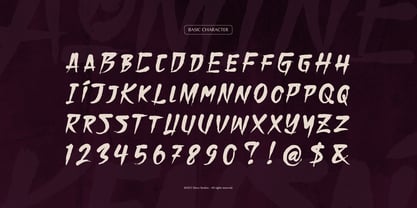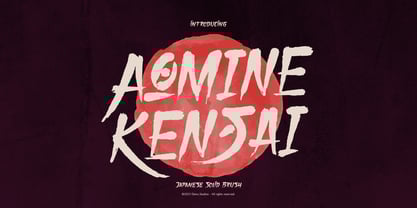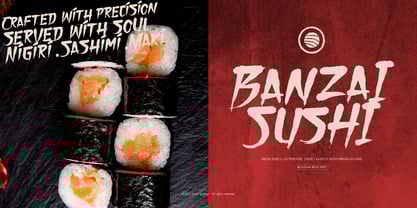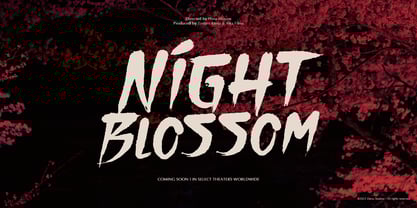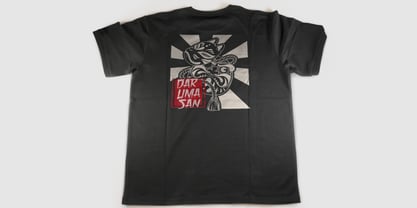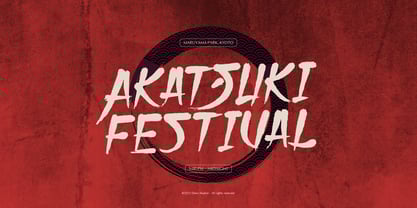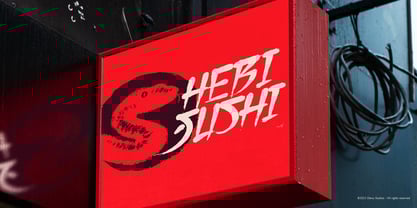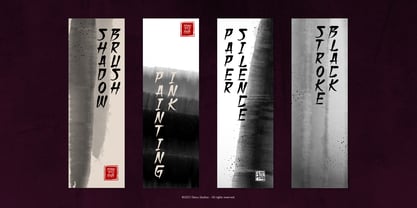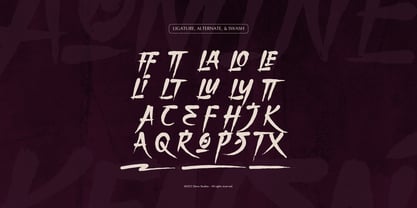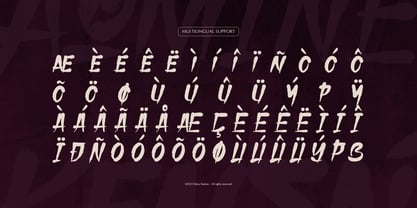
Aomine Kensai
by Denustudio
The Aomine Kensai Font Family was designed by Dede Nugraha and published by Denustudio. Aomine Kensai contains 1 styles. More about this family
Aomine Kensai | Japanese Solid Brush, from Denustudios, suitable for any projects such as: logos, branding projects, homeware designs, product packaging, mugs, quotes, posters, shopping bags, t-shirts, book covers, name card, invitation cards, greeting cards, label, photography, watermark, special events, and all your other lovely projects that need Japanese Solid Brush a taste.